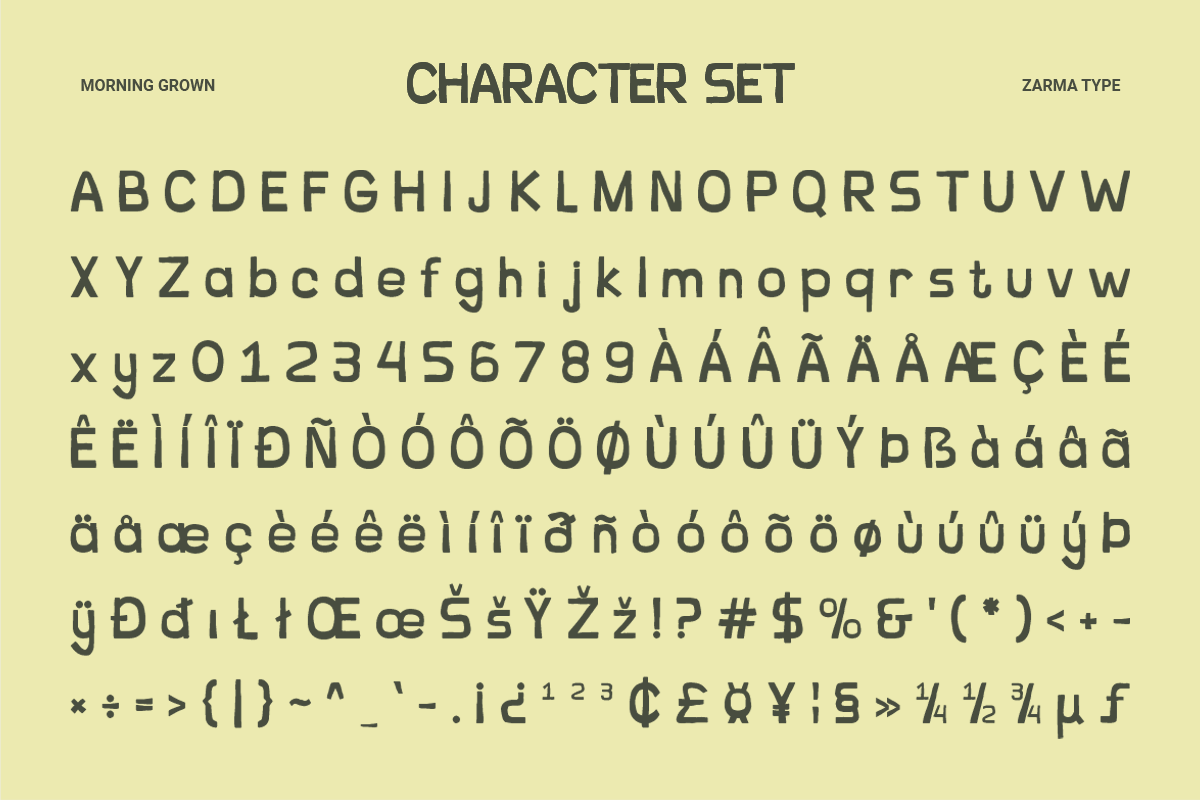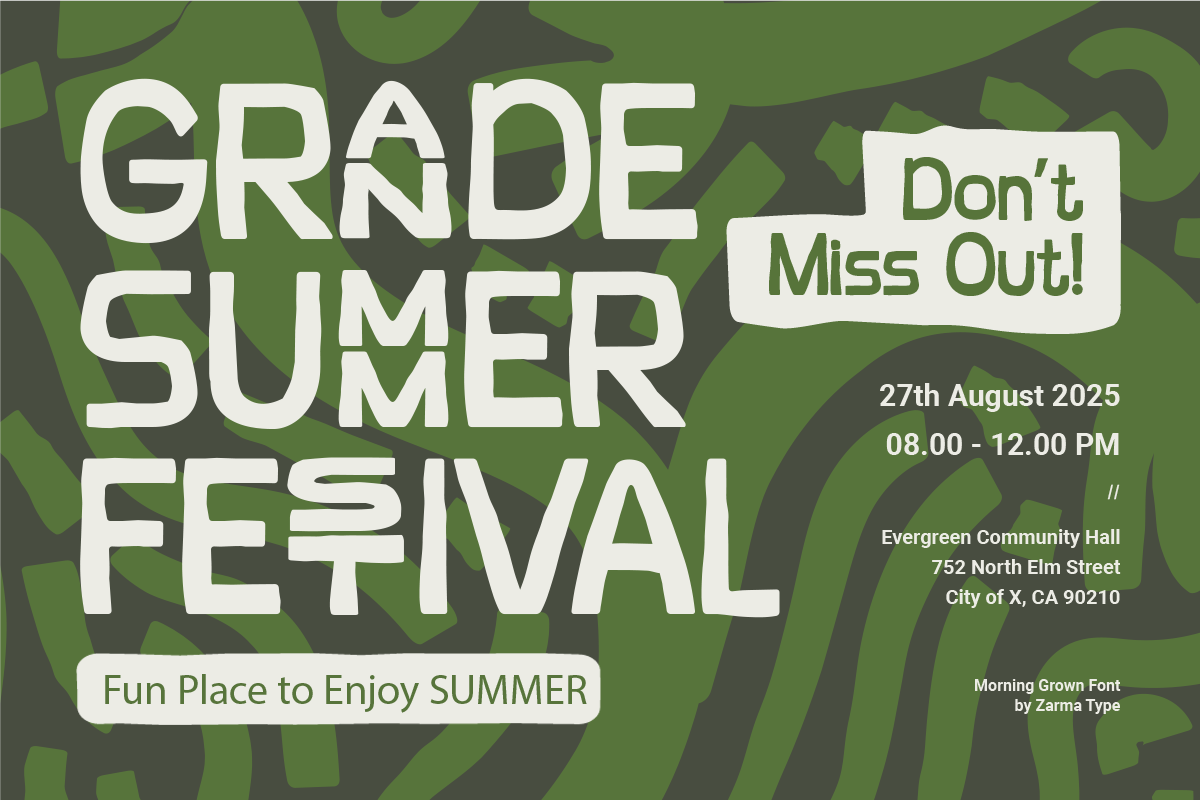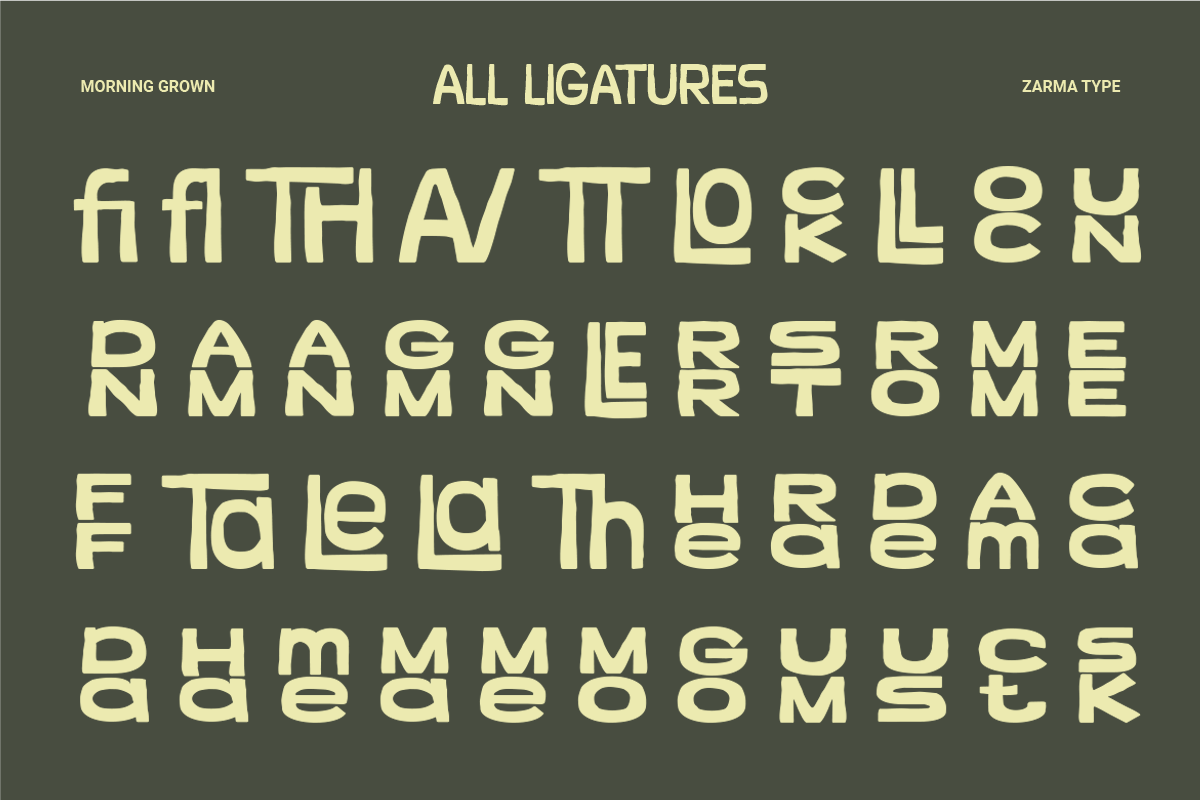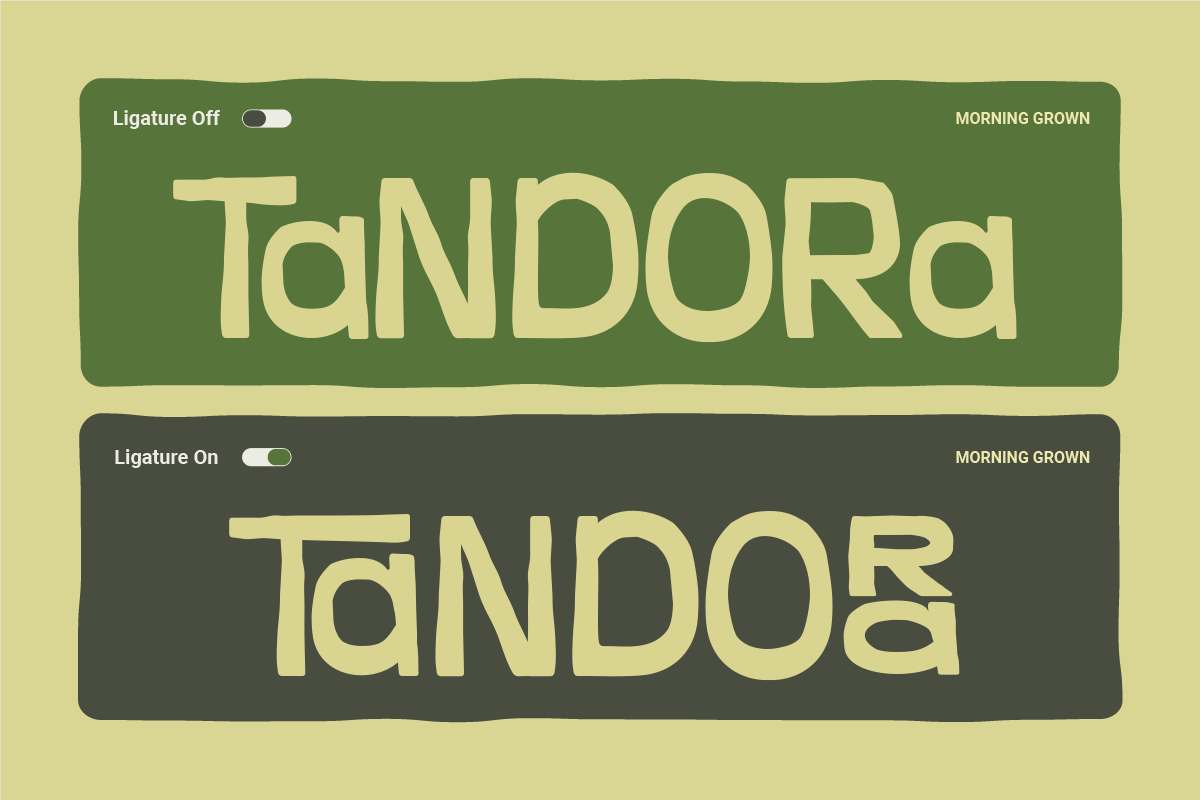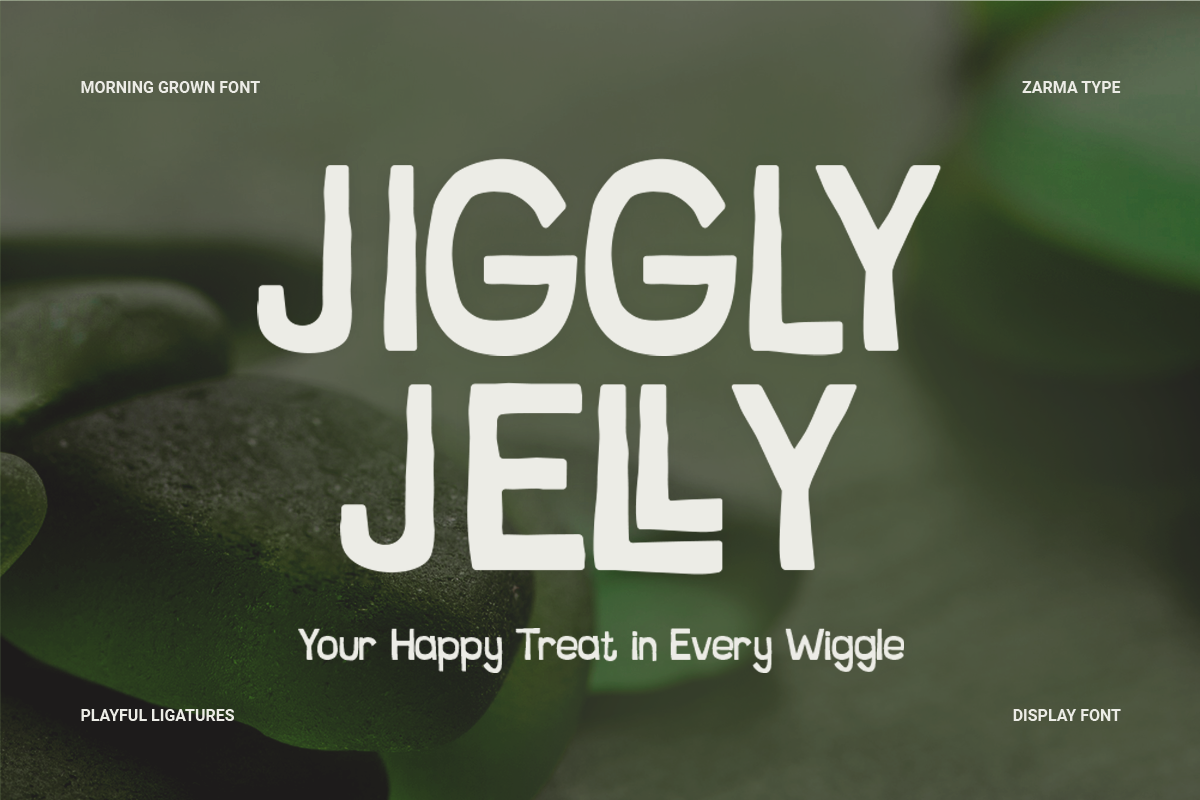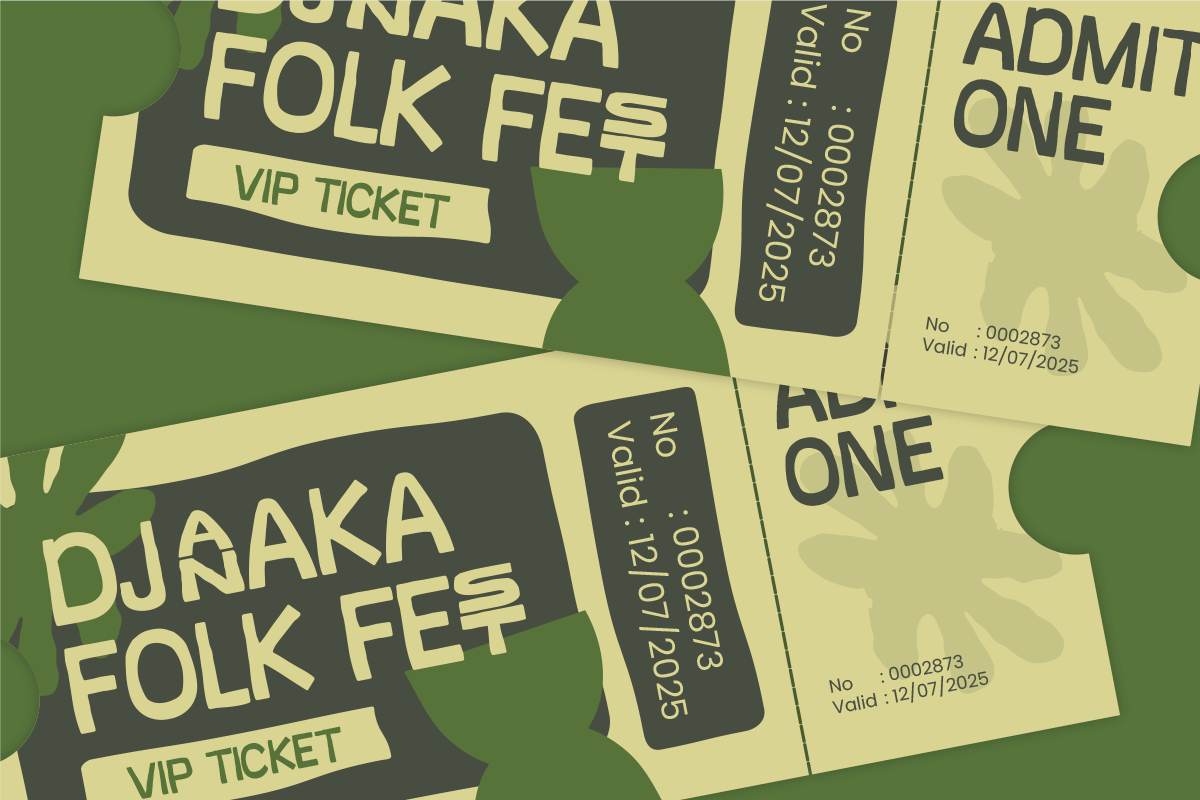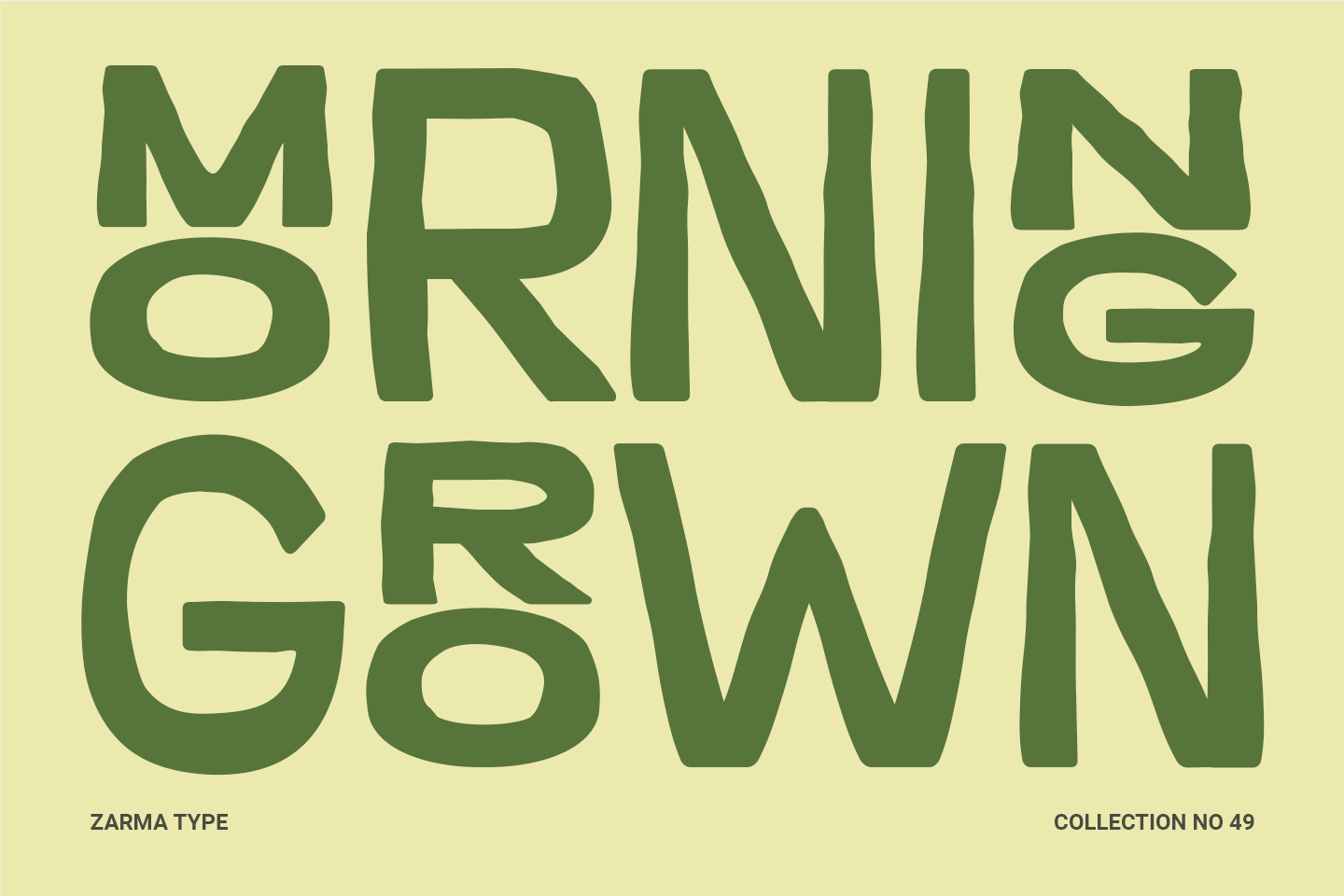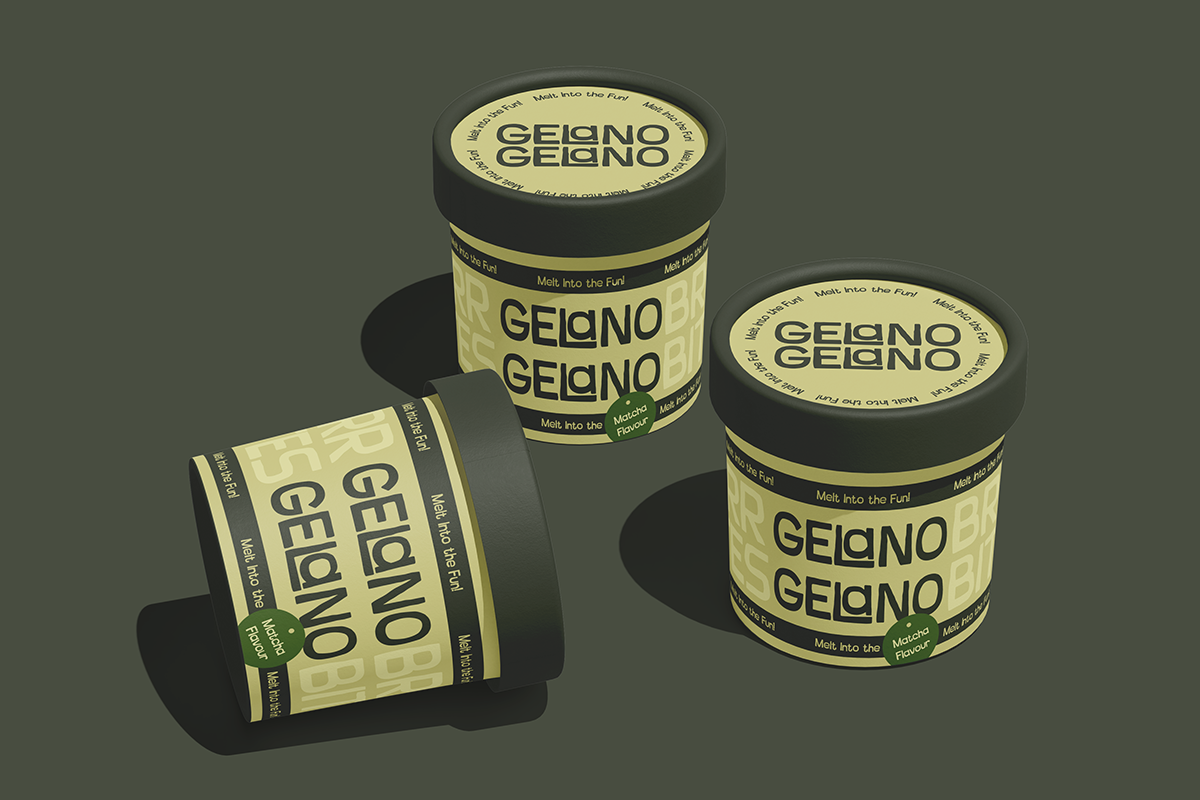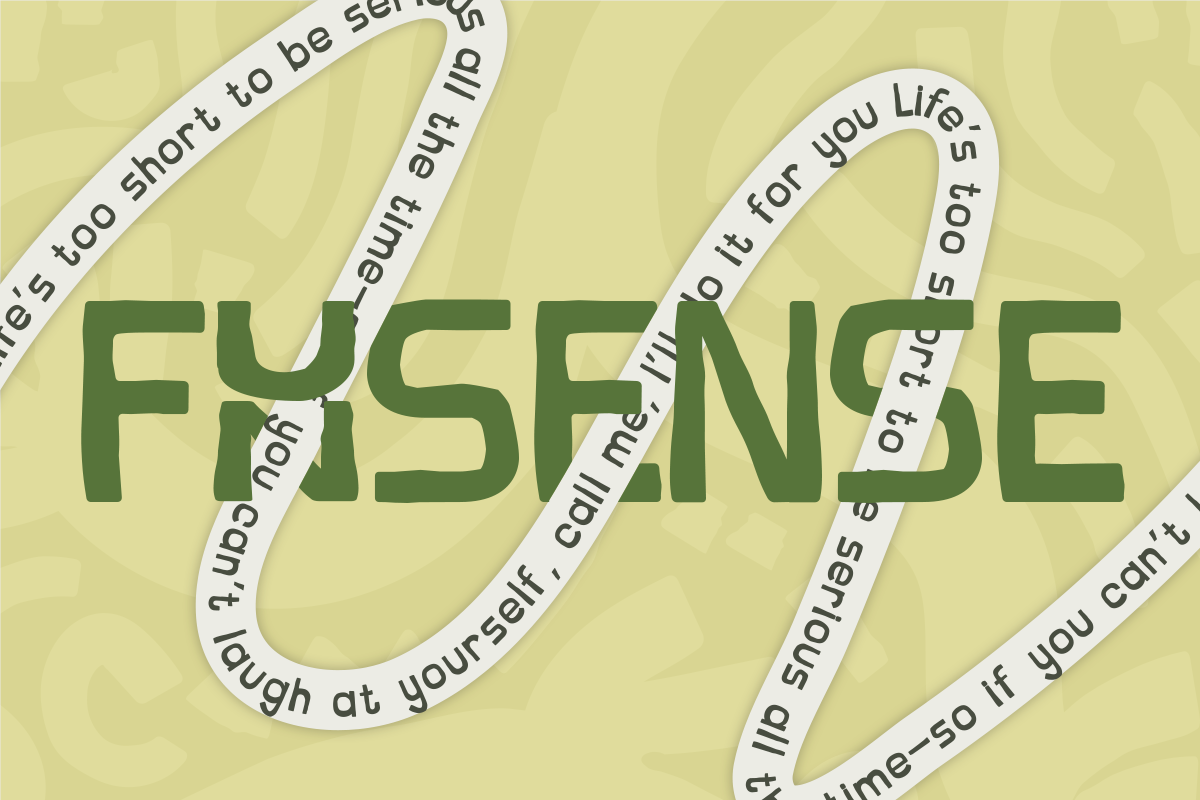
Morning Grown - Playful Font
Morning Grown is a playful ligature font full of quirky charm and handcrafted personality. With bold, wavy strokes and irregular letter shapes, this typeface brings a fun and organic touch to your design. Inspired by retro signage and summer festivals, it adds a nostalgic yet fresh feel to posters, branding, and packaging. Unique ligatures transform standard text into expressive custom typography that captures attention instantly.
From creamy gelato packaging to upbeat event flyers, Morning Grown makes every design feel alive. The playful alternates and rhythmic ligatures give your words movement and creativity. Its all-caps character set maintains high readability, perfect for bold headlines, logotypes, and eye-catching visual compositions across digital or print.
- Retro festival and event posters
- Organic product packaging and branding
- Quirky social media graphics
- Youth apparel and sticker designs
- Hand-drawn inspired logotypes
- Playful book covers or editorial headers
- Uppercase and Lowercase Character Set
- Numbers and Punctuation
- Standard & Discretionary Ligatures